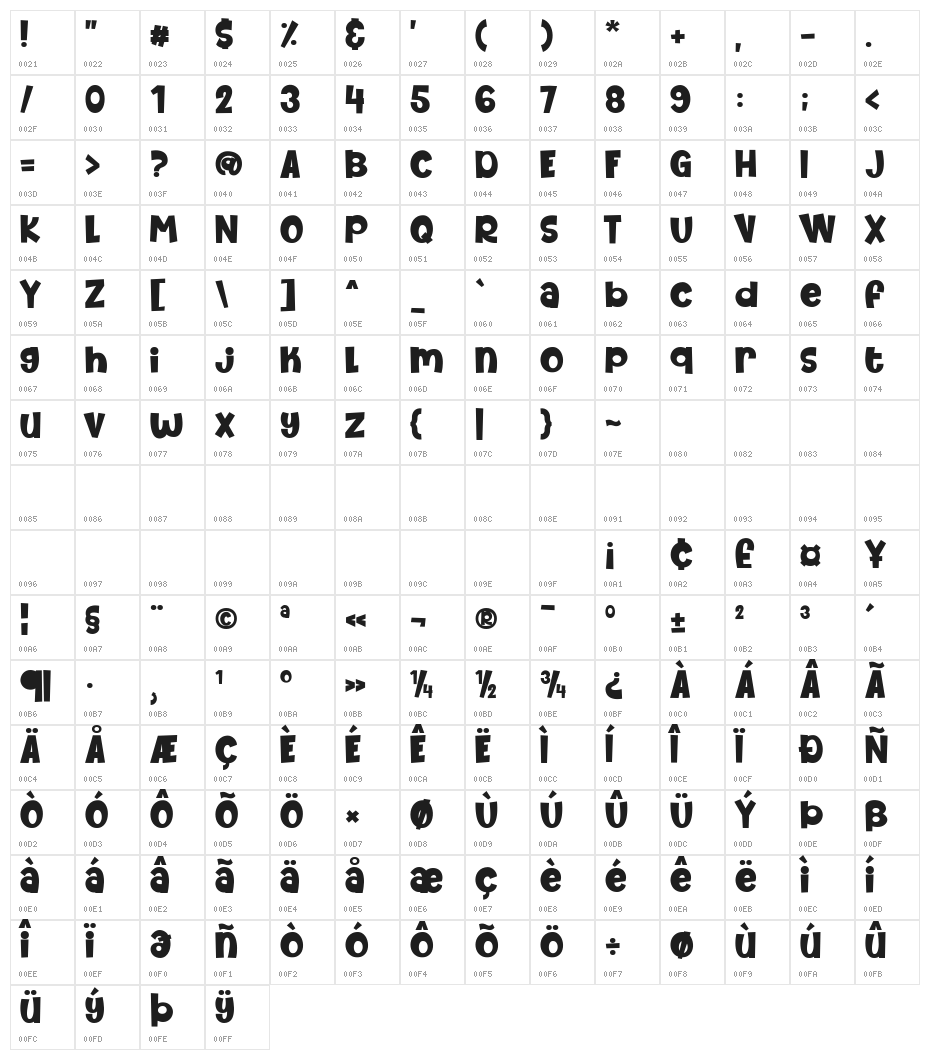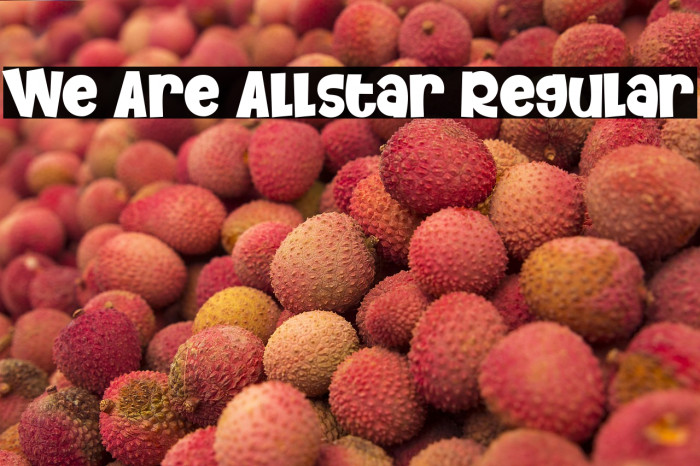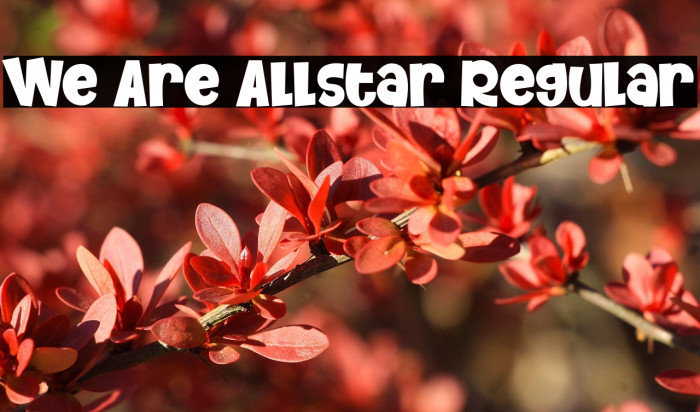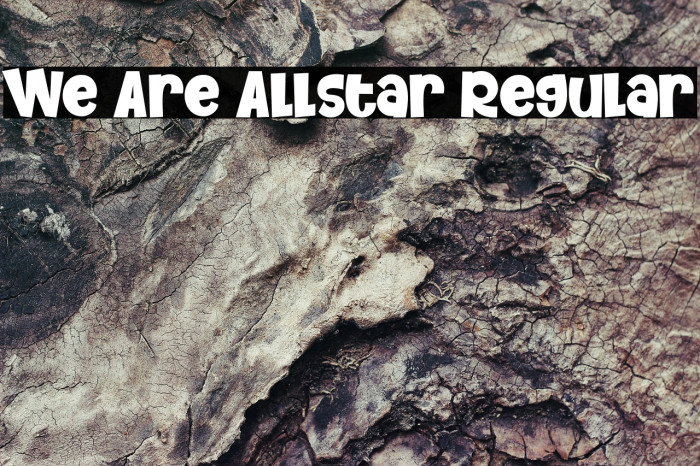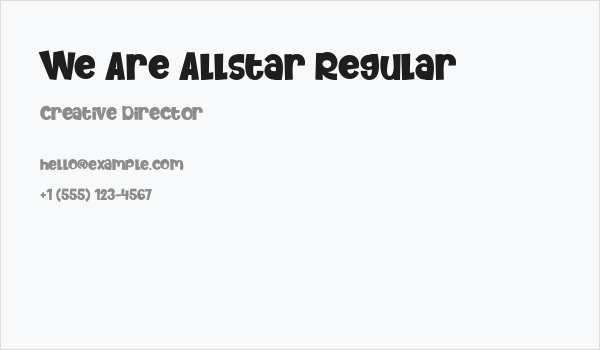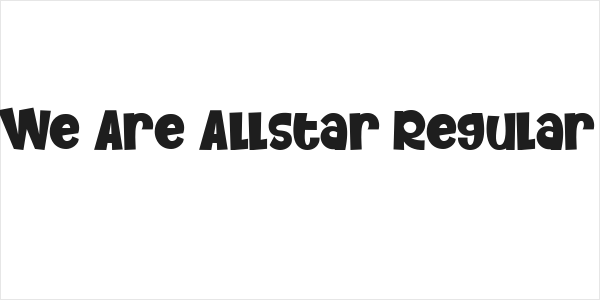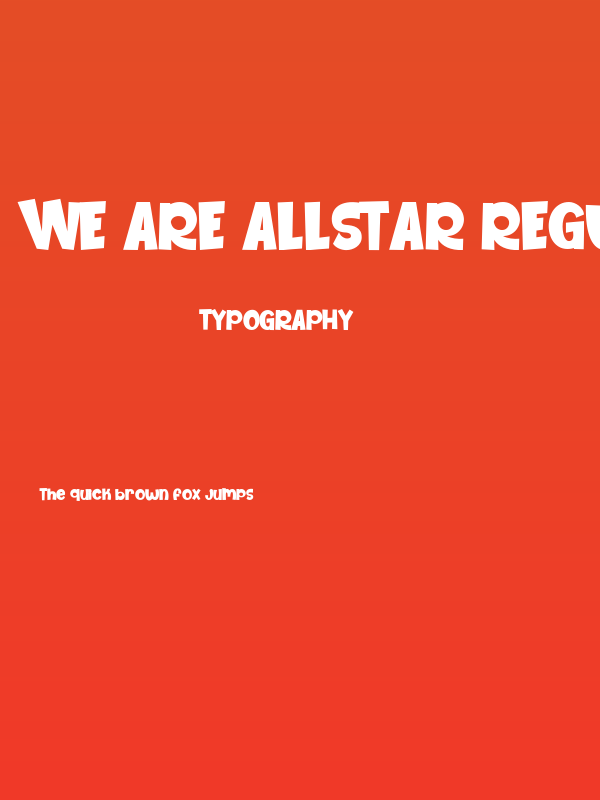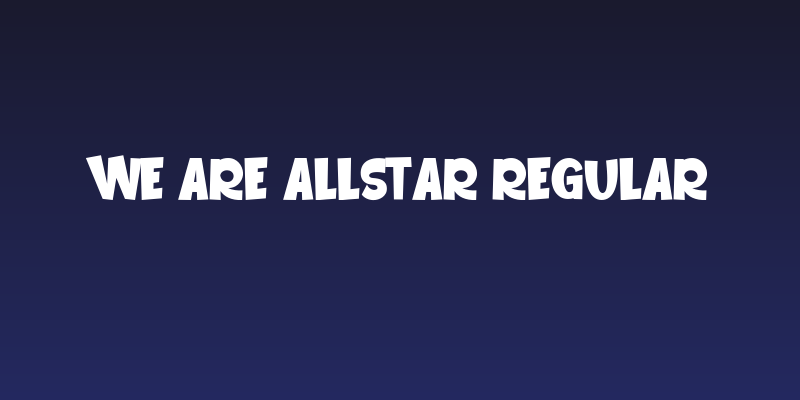
We Are Allstar Regular Font
We Are Allstar Regular Description
This font features a bold and playful design with exaggerated, rounded shapes and a slightly irregular form that gives it a whimsical and energetic appearance. The characters are thick and heavy, with a strong presence that makes them stand out. The uppercase and lowercase letters maintain a consistent style, with some letters having unique, quirky elements that add to the font's charm. The numbers and special characters follow the same playful aesthetic, making the font versatile for various creative applications.
| Proposed Projects | Ideal for children's books, playful branding, posters, and any project needing a fun, eye-catching typeface. |